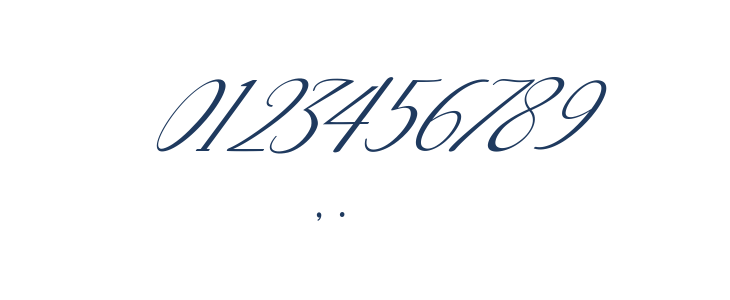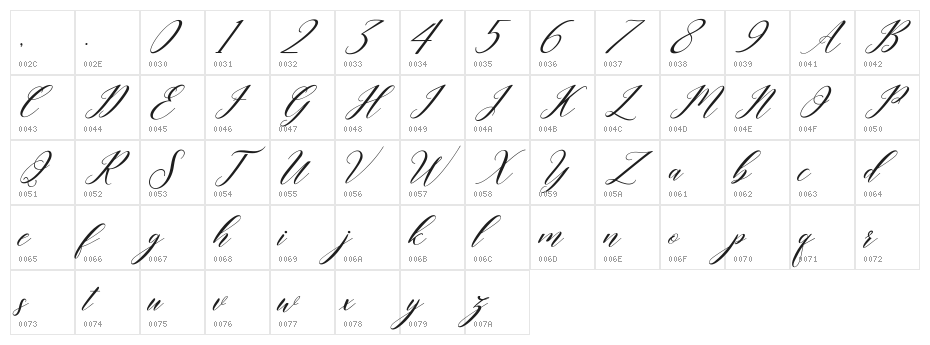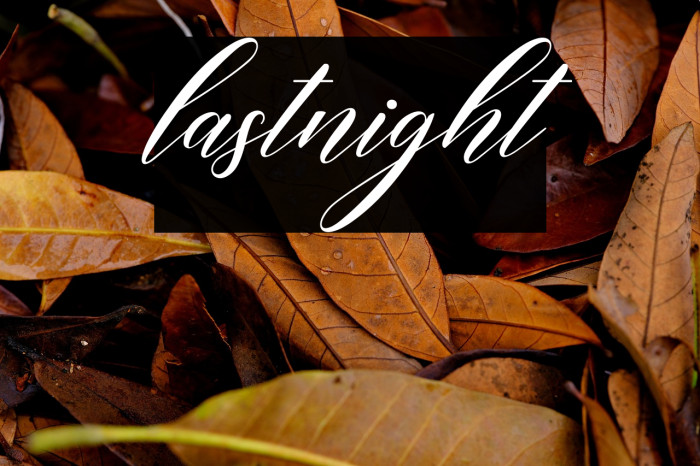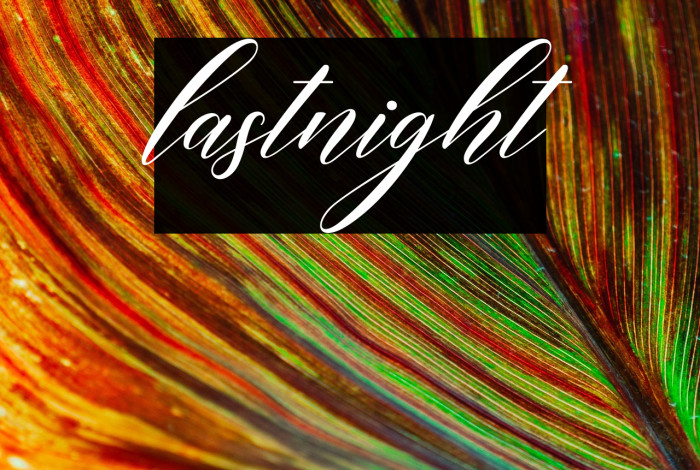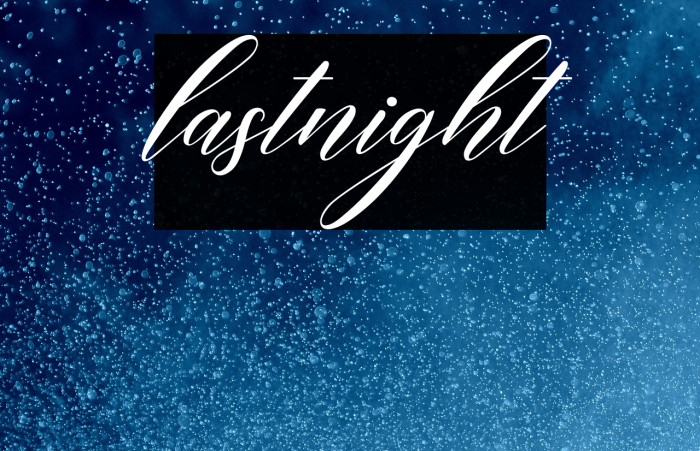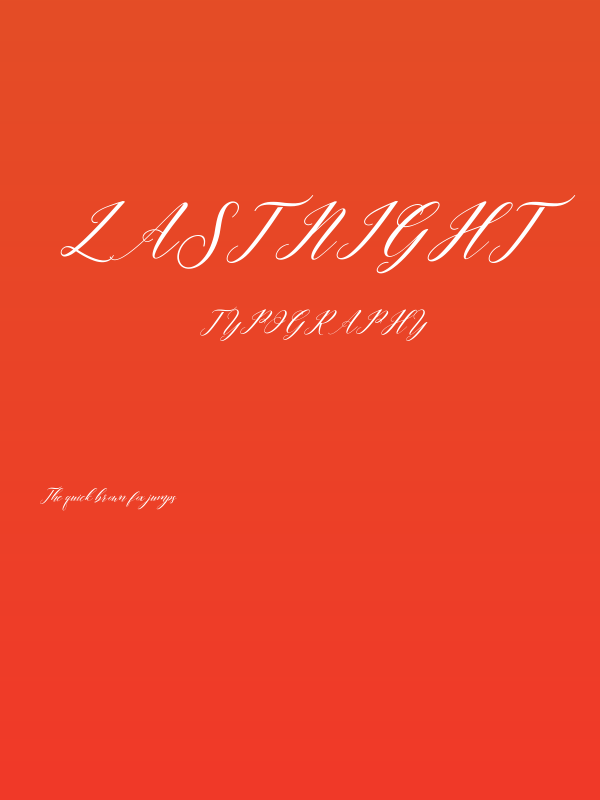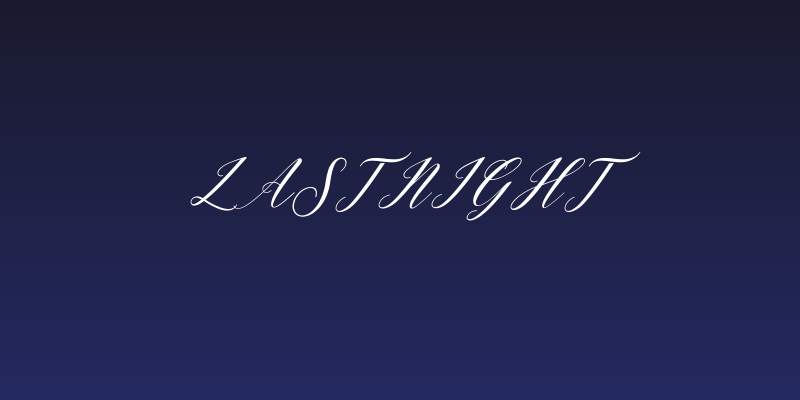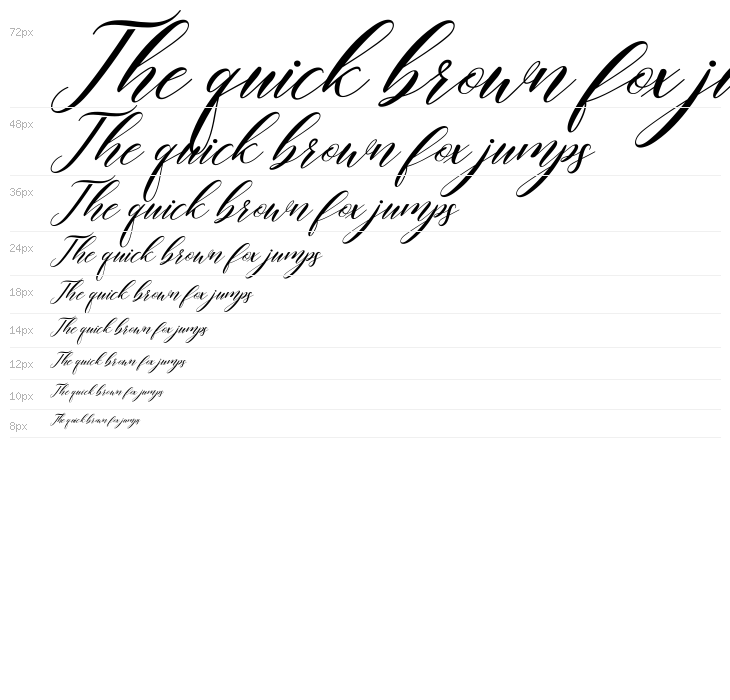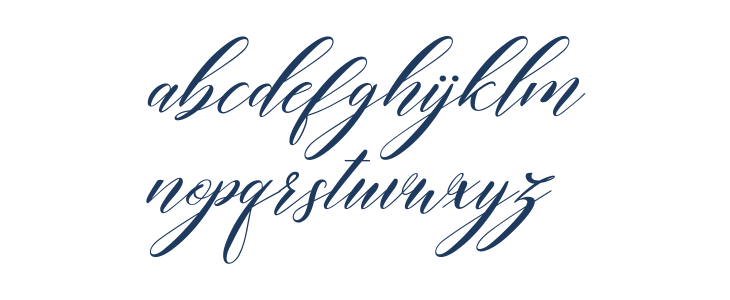
lastnight Font
lastnight Description
This elegant script font features flowing, cursive letters with a refined and sophisticated appearance. The uppercase characters are ornate with sweeping lines and flourishes, while the lowercase letters maintain a graceful continuity. The numerals are stylishly integrated, complementing the overall aesthetic. The font's design is reminiscent of classic calligraphy, making it ideal for formal invitations, branding, and decorative purposes. Its high contrast between thick and thin strokes adds to its visual appeal, ensuring readability while maintaining an artistic flair.
| Proposed Projects | Ideal for wedding invitations, luxury branding, greeting cards, and decorative signage. |